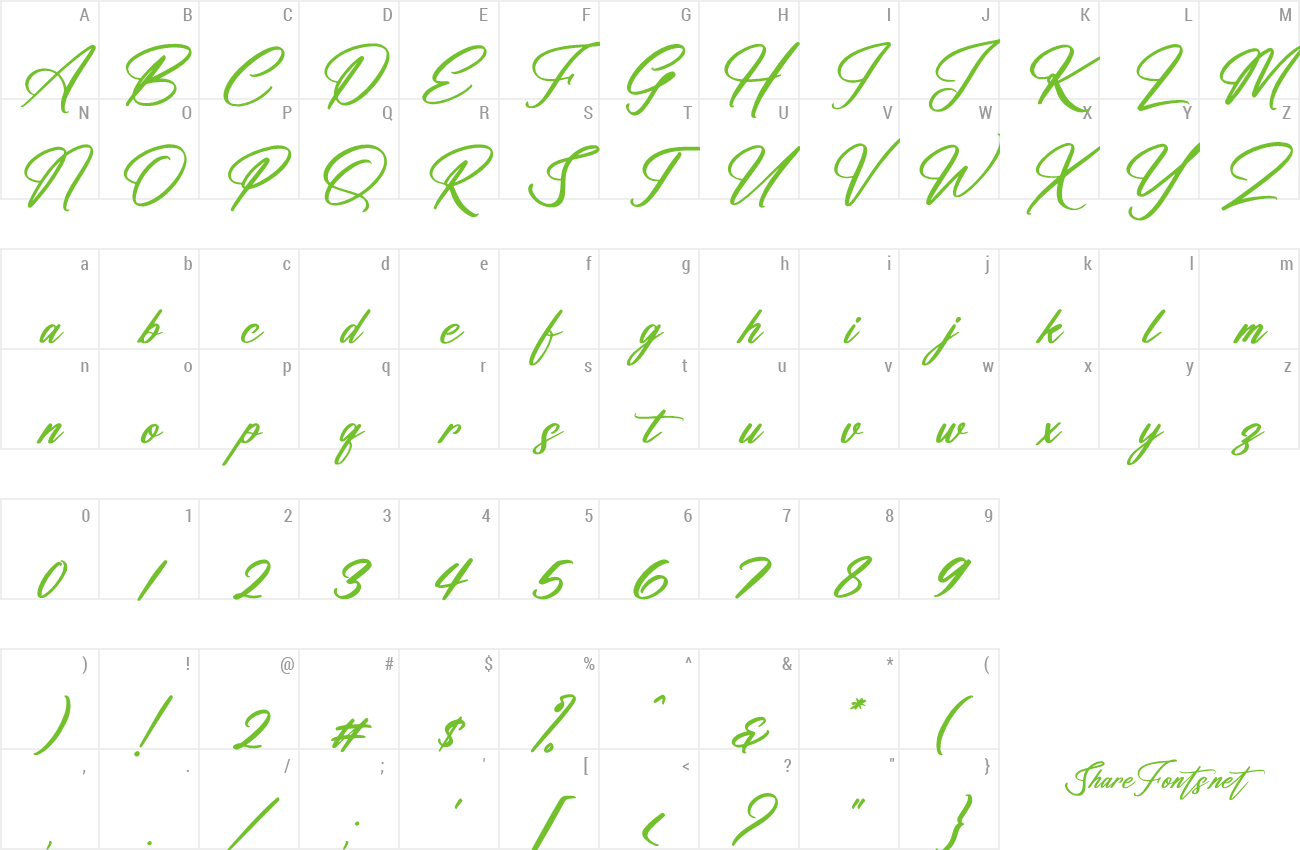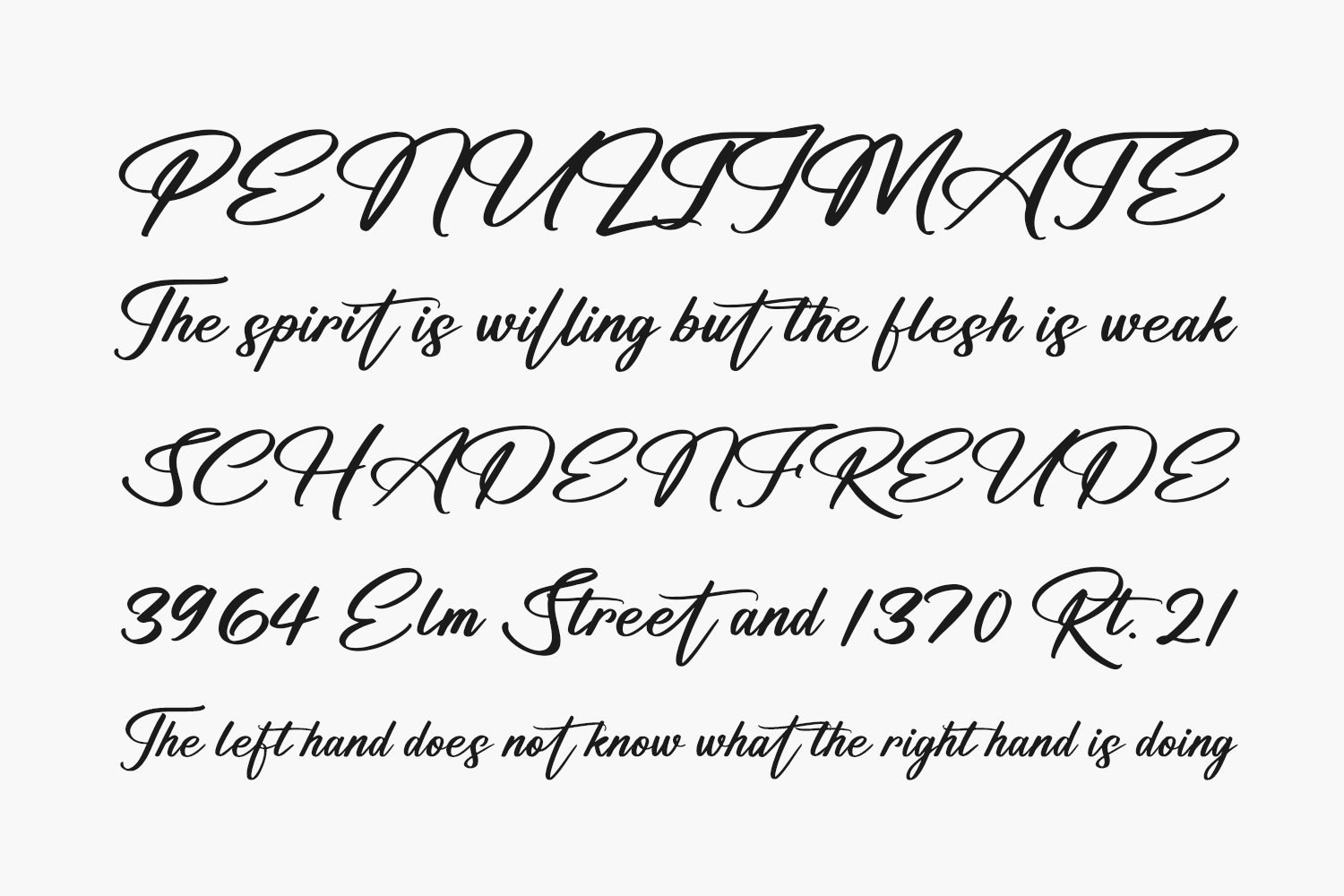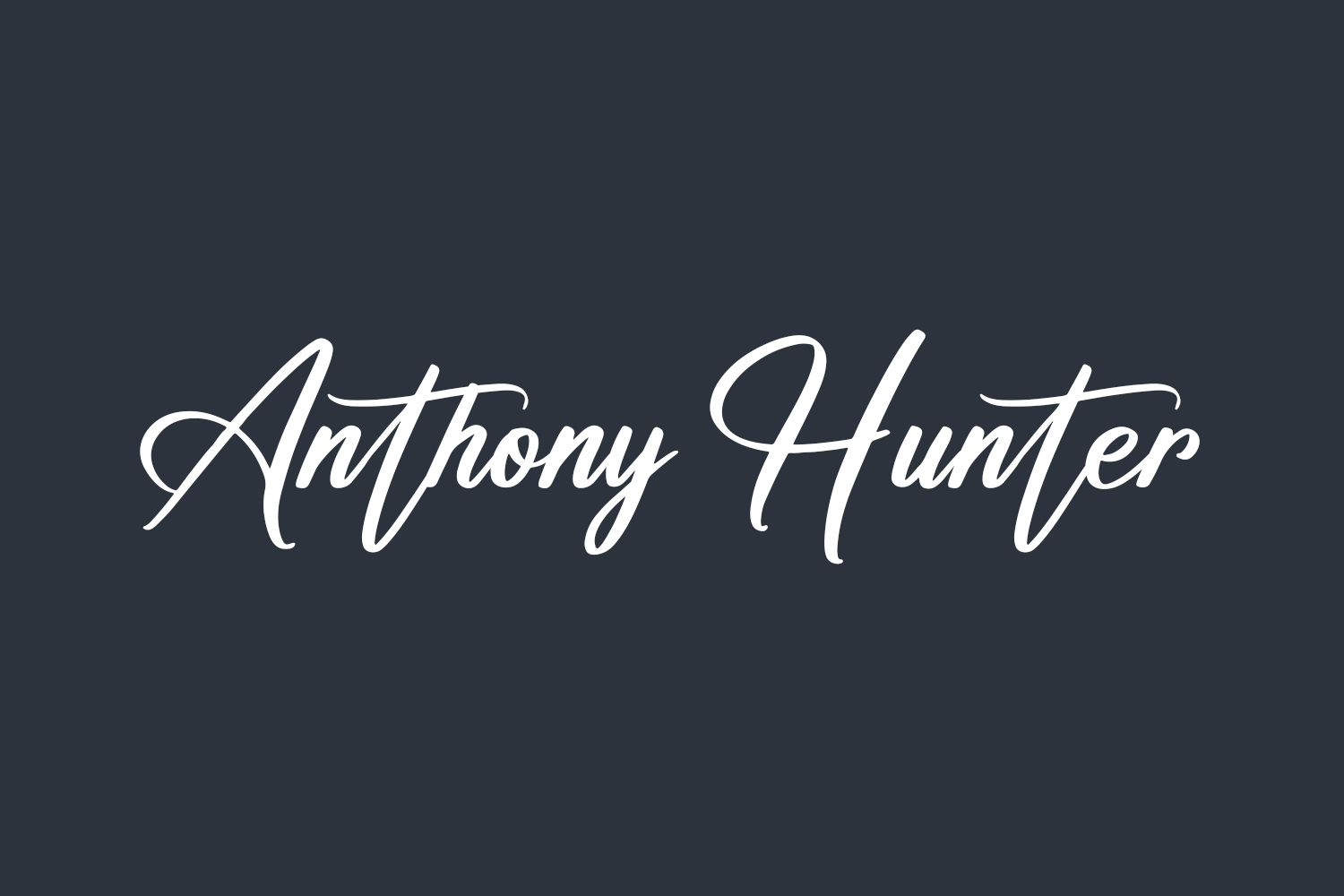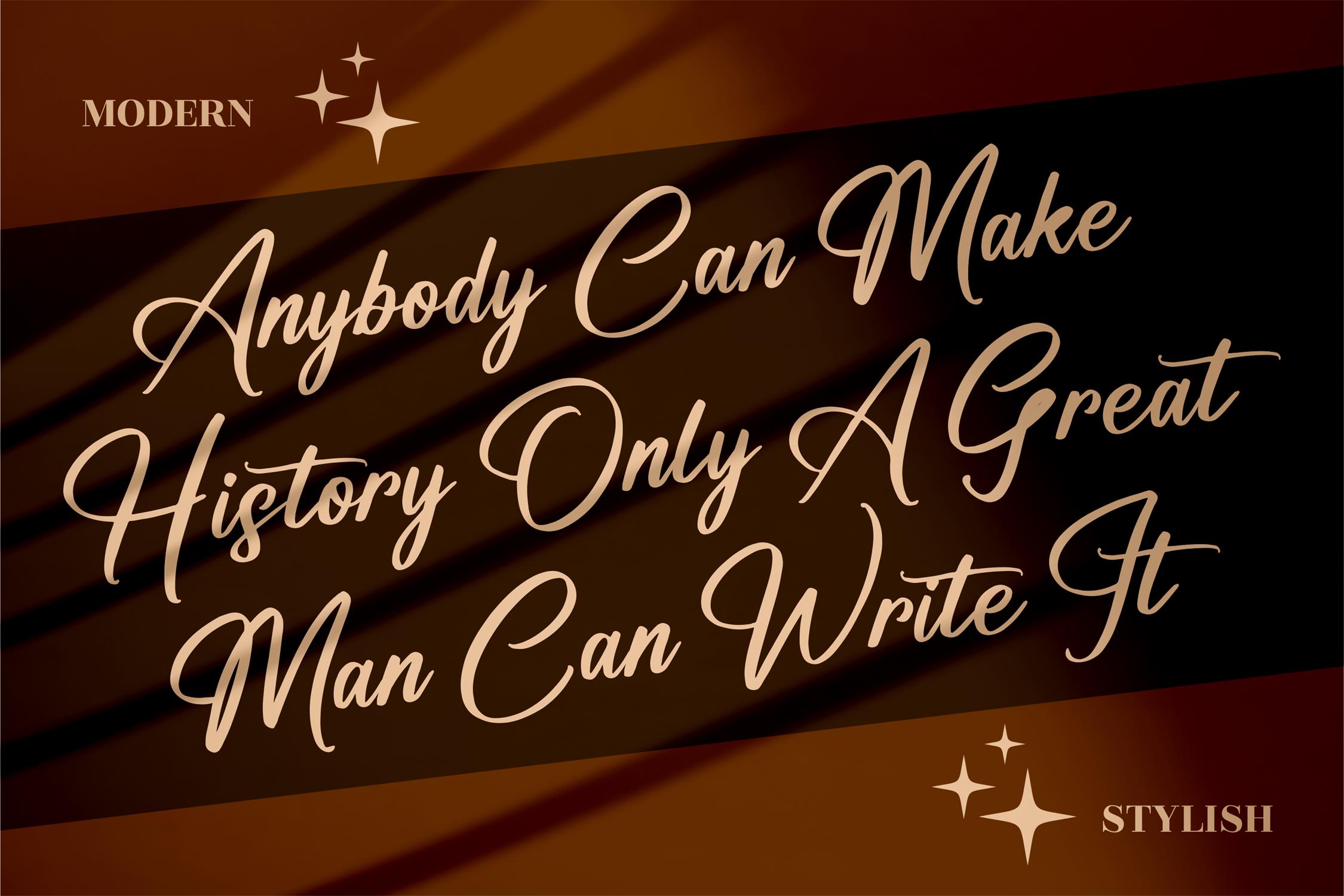
Anthony Hunter Font Free Download - 496,706 downloads (510 yesterday) free. Web anthony hunter is a beautiful light script calligraphy font with a unique feel and a stunning impact. Anthony hunter à € by letterena studios.
Web anthony hunter is a beautiful light script calligraphy font with a unique feel and a stunning impact. 496,706 downloads (510 yesterday) free. Anthony hunter à € by letterena studios.
496,706 downloads (510 yesterday) free. Anthony hunter à € by letterena studios. Web anthony hunter is a beautiful light script calligraphy font with a unique feel and a stunning impact.
Anthony hunter à € by letterena studios. Web anthony hunter is a beautiful light script calligraphy font with a unique feel and a stunning impact. 496,706 downloads (510 yesterday) free.
Web anthony hunter is a beautiful light script calligraphy font with a unique feel and a stunning impact. 496,706 downloads (510 yesterday) free. Anthony hunter à € by letterena studios.
Anthony hunter à € by letterena studios. Web anthony hunter is a beautiful light script calligraphy font with a unique feel and a stunning impact. 496,706 downloads (510 yesterday) free.
Web anthony hunter is a beautiful light script calligraphy font with a unique feel and a stunning impact. 496,706 downloads (510 yesterday) free. Anthony hunter à € by letterena studios.
Web anthony hunter is a beautiful light script calligraphy font with a unique feel and a stunning impact. Anthony hunter à € by letterena studios. 496,706 downloads (510 yesterday) free.
Anthony hunter à € by letterena studios. Web anthony hunter is a beautiful light script calligraphy font with a unique feel and a stunning impact. 496,706 downloads (510 yesterday) free.
Anthony hunter à € by letterena studios. 496,706 downloads (510 yesterday) free. Web anthony hunter is a beautiful light script calligraphy font with a unique feel and a stunning impact.
Web anthony hunter is a beautiful light script calligraphy font with a unique feel and a stunning impact. 496,706 downloads (510 yesterday) free. Anthony hunter à € by letterena studios.
Anthony Hunter À € By Letterena Studios.
Web anthony hunter is a beautiful light script calligraphy font with a unique feel and a stunning impact. 496,706 downloads (510 yesterday) free.